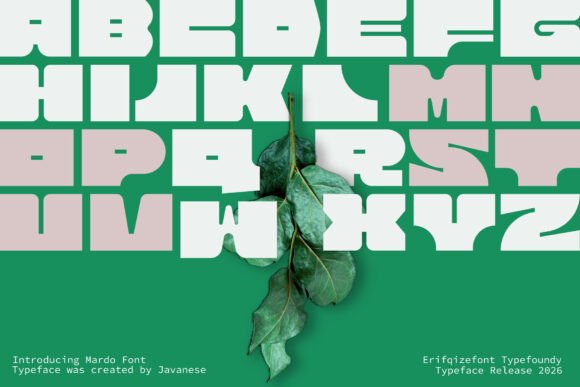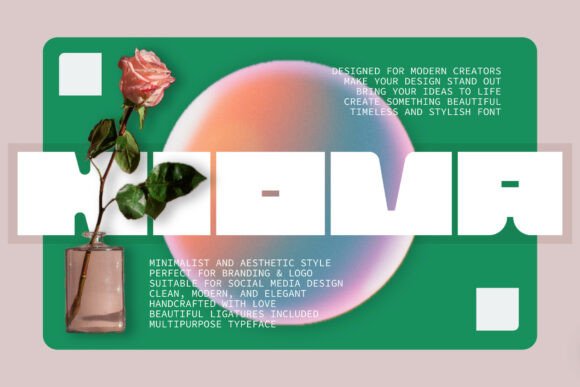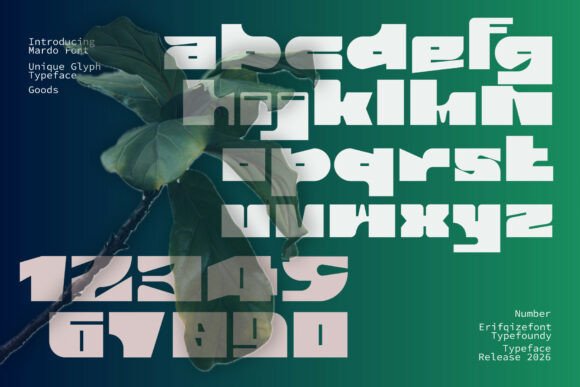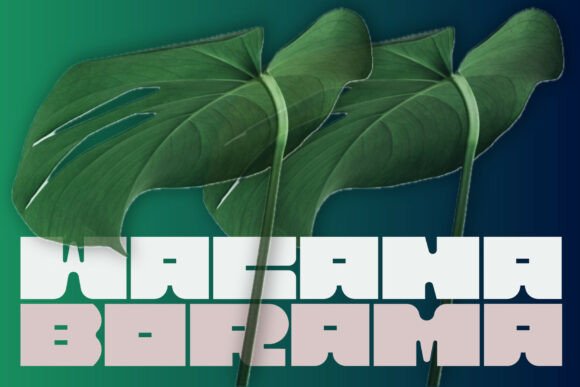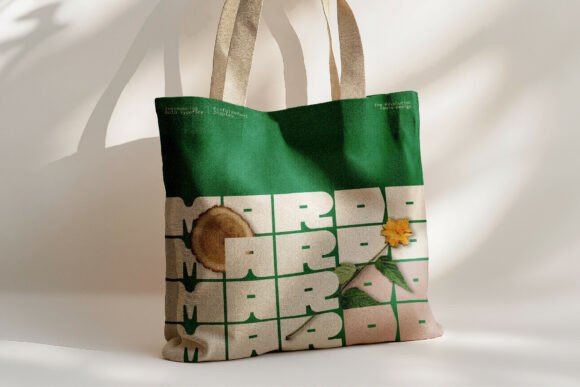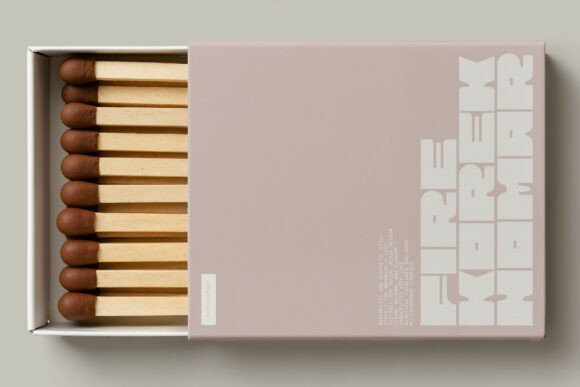
Introduction to Mardo Font
MARDO – Bold Geometric Display Typeface Make a fearless statement with Mardo, a revolutionary display font built for the modern era.
Designed with a heavy, block-based structure and sharp geometric precision, Mardo is the ultimate tool for designers who need their headlines to command instant attention Mardo strikes a perfect balance between industrial strength and contemporary art.